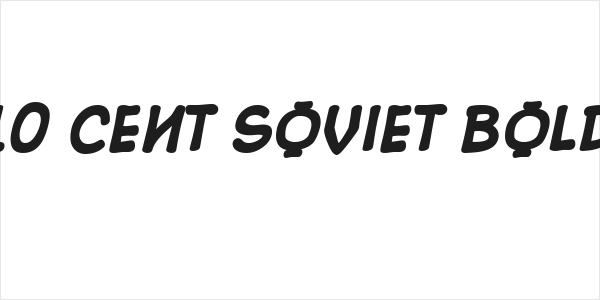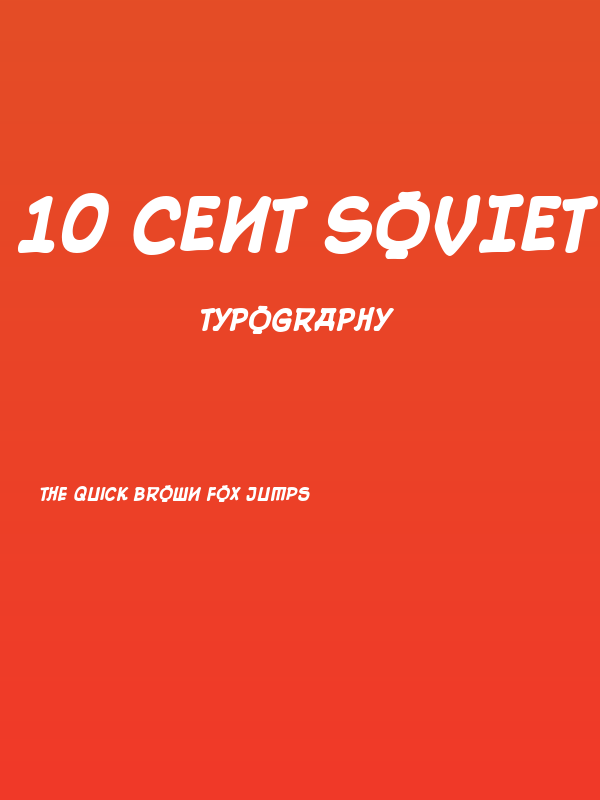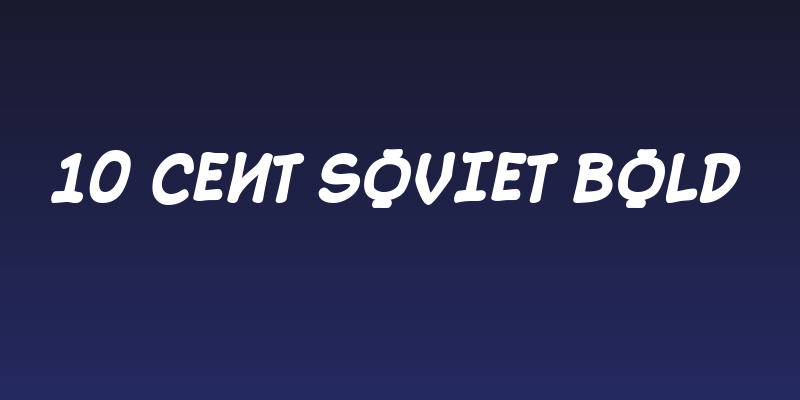
10 Cent Soviet Bold Font
10 Cent Soviet Bold Description
This bold and dynamic font features a strong, rounded style with a distinctly retro vibe. The characters are thick and slightly slanted, giving them a sense of movement and energy. The uppercase letters are bold and commanding, while the lowercase letters maintain a consistent weight and style. The numerals are equally bold, ensuring readability and impact. Special characters are designed with the same boldness, making them stand out. This font's unique style is reminiscent of mid-20th-century design, with a playful yet assertive presence.
| Proposed Projects | Ideal for vintage-themed posters, retro branding, and eye-catching headlines. |